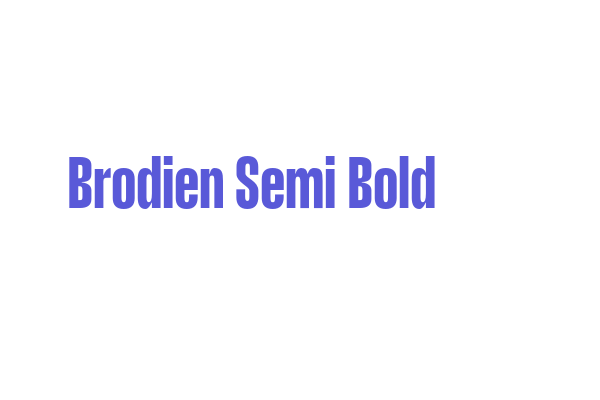
Brodien Semi Bold is a modern and sleek sans serif font designed by Yukita Creative and Abdul Artega. With its semi bold style, this font is perfect for adding a touch of sophistication and professionalism to your designs. Ideal for headings, logos, and branding projects, Brodien Semi Bold stands out with its clean lines and contemporary aesthetic.
Font Name: Brodien Semi Bold
Designer: Yukita Creative, Abdul Artega
Font Family: Brodien SemBd